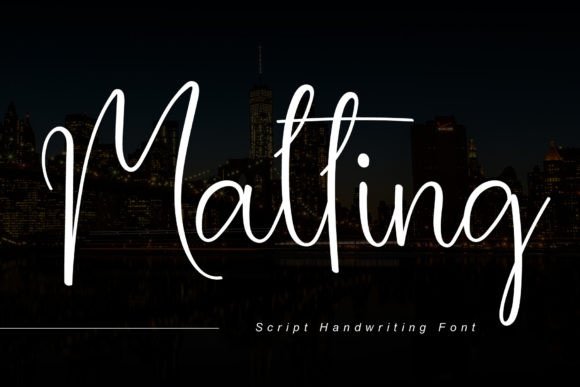
Introducing Malting Font, the script font that will ignite your designs with sweetness and romance. Originating from the creative minds at 21Design, Malting is a cursive handwritten font that will add a touch of delight to your design endeavors.
With its graceful curves and charming personality, Malting is the perfect font for expressing your emotions through design. It will effortlessly elevate your branding, logos, wedding invitations, greeting cards, fashion designs, look books, and marketing campaigns.
Imagine your designs adorned with Malting's elegant yet casual style, captivating your audience with its enchanting presence. This font is a true treasure for those seeking to create designs that speak of love, joy, and heartfelt connections.